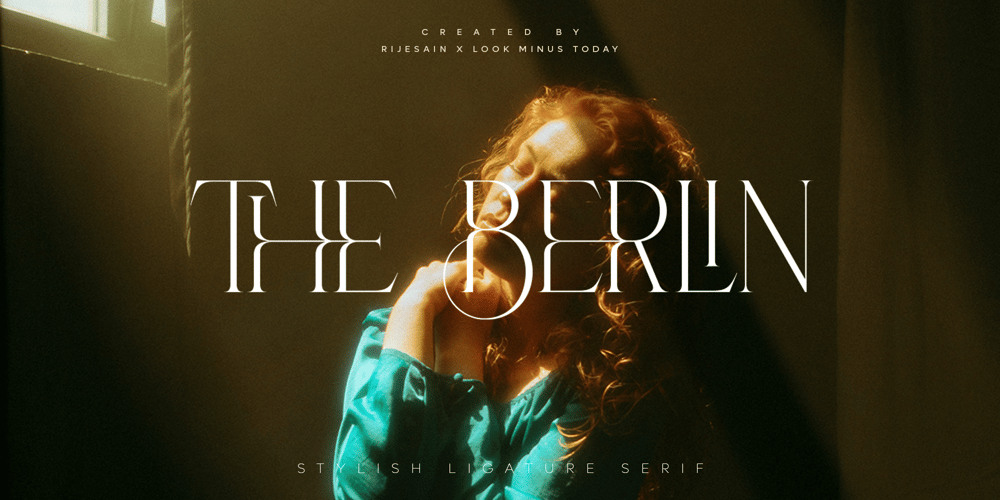
THE BERLIN Font Family was designed by Arif Rijal and published by Look Minus Today. THE BERLIN contains 1 styles and family package options. Introducing THE BERLIN – A Elegant Font With A Ligatures & Alternates by Rijesain x Look minus todayTHE BERLIN – a modern serif font that will add a touch of sophistication to any design Project. With its sleek lines and contemporary design, The Berlin is the perfect font for anyone looking to create a modern, stylish look in their designs.Features: Uppercase Lowercase Ligatures & Alternates Numerals & Punctuation Multilingual Thanks & Happy Designing!